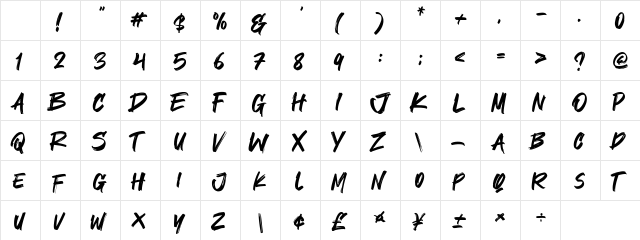
Complete Quick Town Regular glyph index. Displaying only characters natively supported by Quick Town Regular font.
Quick Town is a composed and adaptable typeface that performs quietly and consistently across a wide range of design contexts.